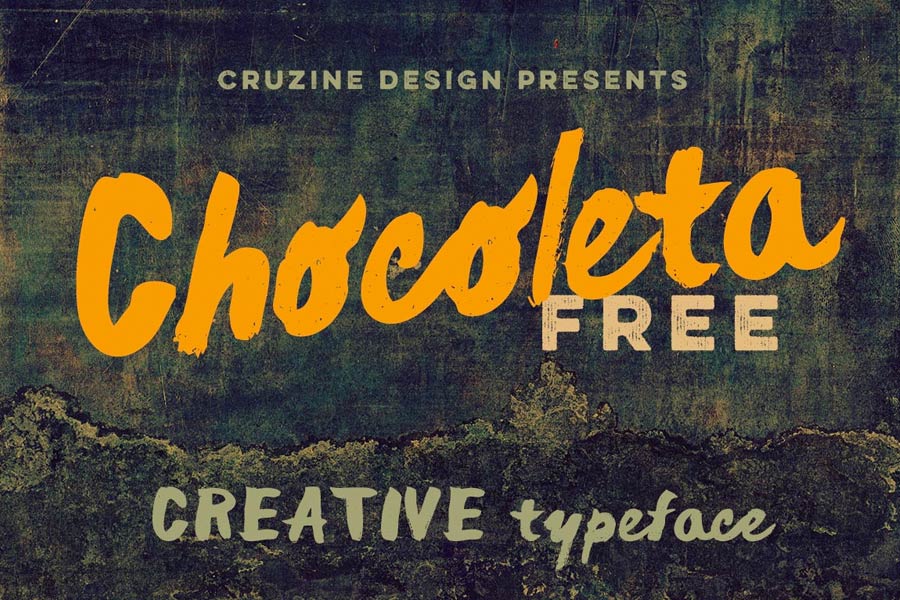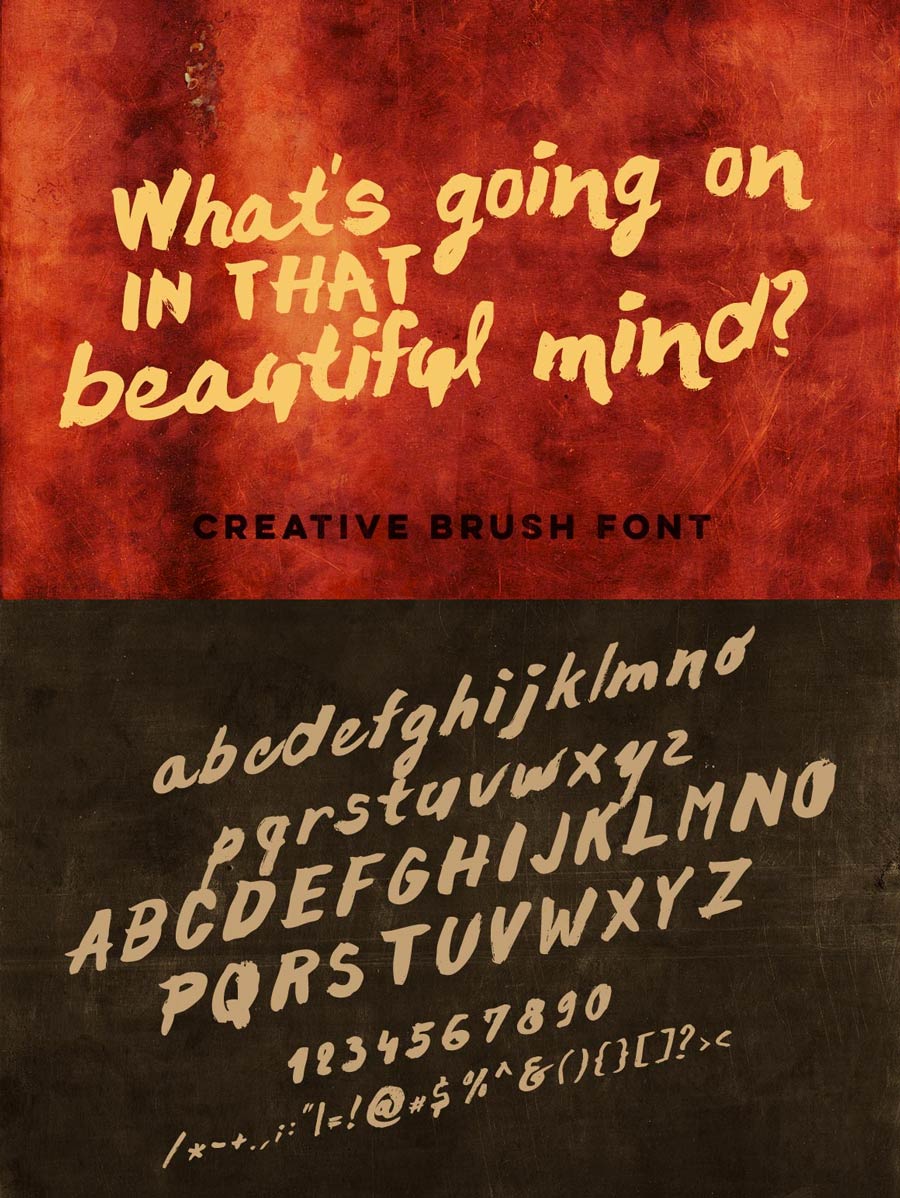
Chocoleta is a thick, expressive brush font that you can download for free. The font style is pretty raw and original, where it’s suitable to brings out the design essence of “street” and “urban”.